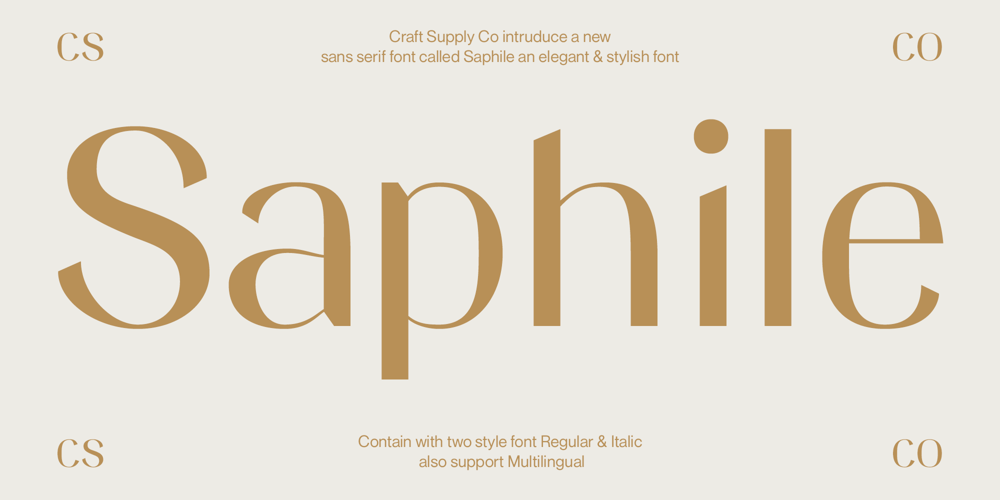
Saphile Font Family was designed by Trio Nazzar Saputra, Wahyu Hadi Yuana and published by Craft Supply Co. Saphile contains 2 styles and family package options. Saphile – The Epitome of Elegant Sans SerifElegance in Every DetailSaphile, an elegant sans serif font, stands out with its gracefully angled stem ends and terminals, coupled with high contrast, making it the perfect choice for luxurious designs.A Typeface of LuxurySaphile is more than just a font; it embodies luxury. Its sleek design and high contrast add an opulent touch to any project it graces.Tailored for Luxury DesignsDesigned with luxury in mind, Saphile elevates the visual appeal of high-end branding, premium packaging, and more.